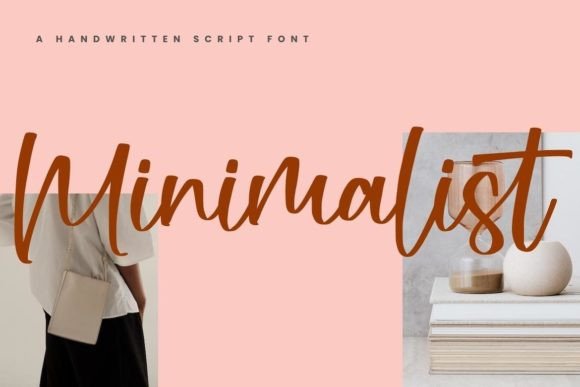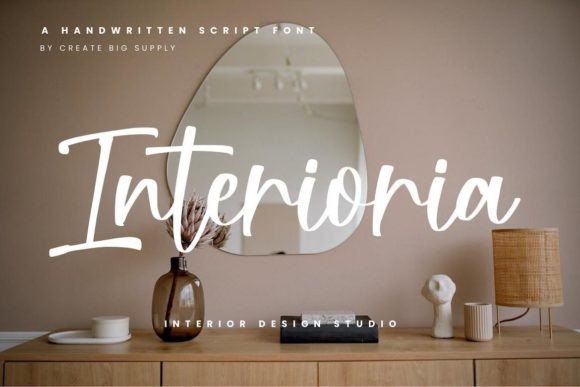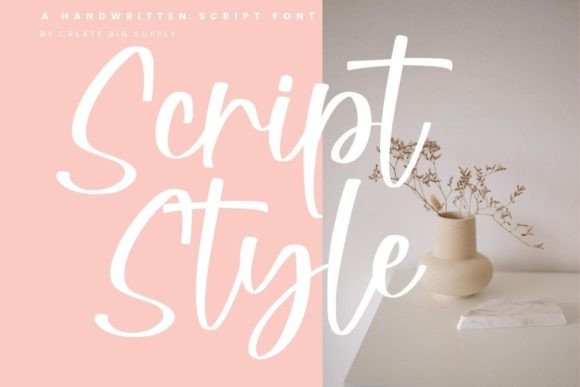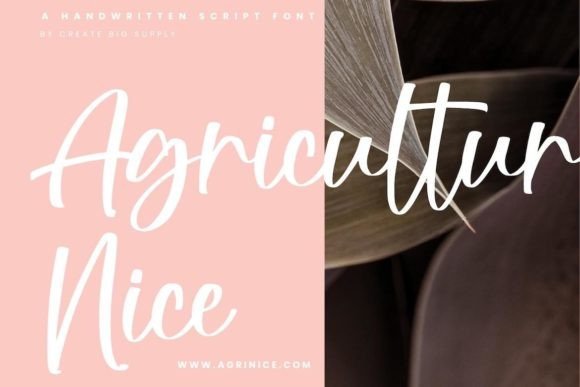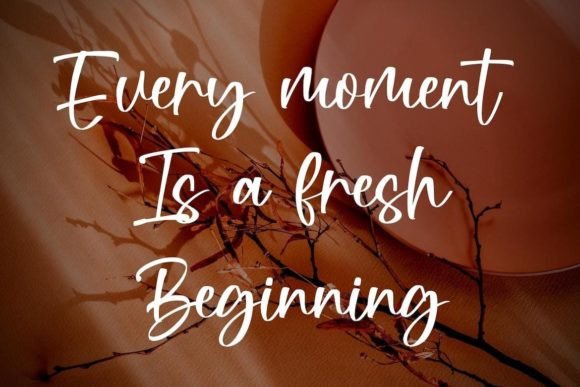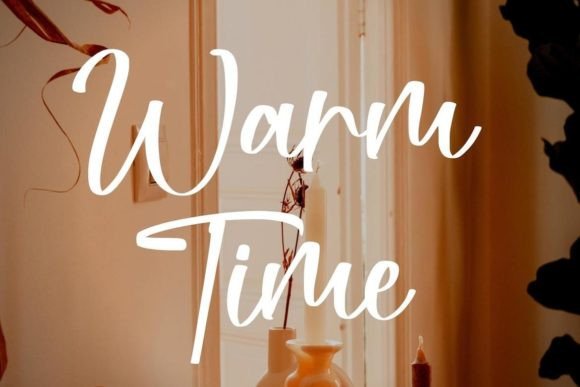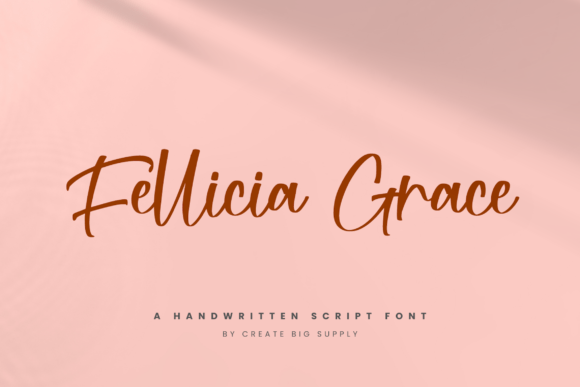
Elevate Your Designs with Fellicia Grace Font: The Epitome of Elegance and Charm
In the world of design, fonts play a pivotal role in conveying the essence and aesthetic of a project. Among the myriad of fonts available, Fellicia Grace Font stands out as a beacon of elegance and charm. This stunning signature handwriting font is designed to add a touch of sophistication to any design, be it invitations, branding, personal projects, or digital content. With its natural and graceful strokes, Fellicia Grace Font is poised to become the go-to choice for designers and crafters looking to elevate their creations.
The Beauty of Fellicia Grace Font
Fellicia Grace Font is more than just a collection of letters; it’s an expression of artistry and refinement. Its unique, handcrafted design exudes a sense of warmth and personality, making it perfect for projects that demand a personal touch. Whether you’re crafting wedding invitations, designing a brand’s logo, or working on personal crafts, this font ensures that your work stands out with an air of elegance and sophistication.
Key Features of Fellicia Grace Font
Fellicia Grace Font comes with an impressive array of features that make it versatile and highly usable across various design projects. Some of its key features include:
• Uppercase and Lowercase Letters: The font includes a full set of both uppercase and lowercase letters, ensuring that you have the flexibility to craft designs with the desired impact and emphasis.
• Numbers and Punctuations: Along with letters, the font also includes a range of numbers and punctuations, making it a comprehensive solution for most design needs.
• Multilingual Support: Fellicia Grace Font supports multiple languages, allowing designers to create content for a global audience without worrying about character limitations.
Applications of Fellicia Grace Font
The versatility of Fellicia Grace Font makes it suitable for a wide range of applications. Here are some of the areas where this font truly shines:
• Invitations and Stationery: Add a touch of class to your wedding invitations, birthday cards, and other stationery with the elegant strokes of Fellicia Grace Font.
• Branding and Logo Design: Use Fellicia Grace Font to create unique and memorable logos that reflect the sophistication and charm of your brand.
• Digital Content: Enhance your website, blog, or social media content with Fellicia Grace Font, making your digital presence more engaging and refined.
• Personal Projects: Whether you’re working on crafts, DIY projects, or personal artwork, Fellicia Grace Font can add a professional and elegant finish.
Tips for Using Fellicia Grace Font Effectively
To make the most out of Fellicia Grace Font, consider the following tips:
• Pair with Complementary Fonts: For maximum impact, pair Fellicia Grace Font with simpler, sans-serif fonts to create a balanced and visually appealing design.
• Adjust Size and Color: Experiment with different sizes and colors to find the perfect combination that suits your design’s theme and background.
• Utilize Multilingual Support: Take advantage of the font’s multilingual support to create content for diverse audiences, ensuring your message is accessible and engaging.
Font Name Fellicia Grace Font
Author Create Big Supply
Fellicia Grace Font is a remarkable addition to any designer’s toolkit, offering a perfect blend of elegance, charm, and versatility. Its comprehensive feature set, including uppercase and lowercase letters, numbers, punctuations, multilingual support, and PUA encoding, makes it an ideal choice for a wide range of projects. By incorporating Fellicia Grace Font into your designs, you can elevate your work to new heights of sophistication and appeal. Whether you’re a professional designer or a crafting enthusiast, Fellicia Grace Font is sure to inspire creativity and bring a touch of elegance to your creations.
Explore the beauty and versatility of Fellicia Grace Signature Handwriting Font today and discover how it can transform your designs into stunning works of art.